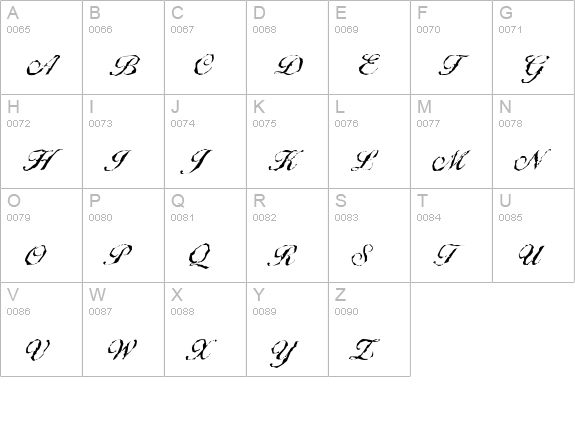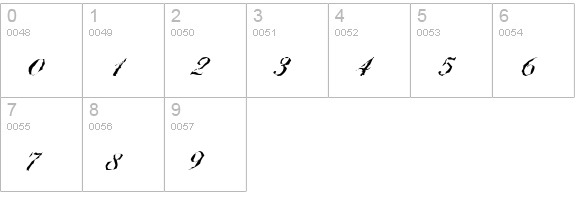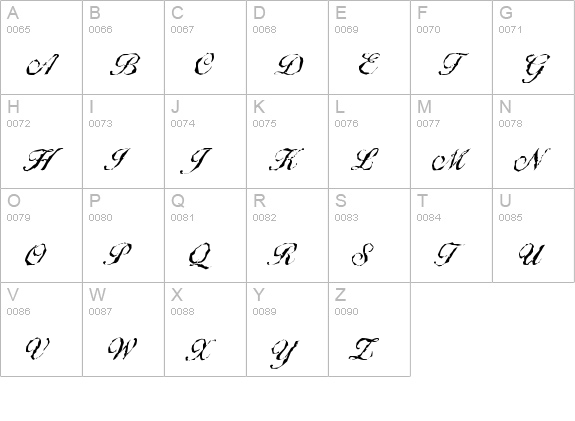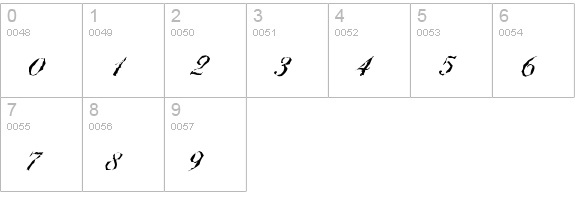
BallantinesRandom-Regular is the standard, neutral variant in the BallantinesRandom typeface family \xE2\x80\x94 well suited to general body text, paragraphs, and standard typographic work.
BallantinesRandom-Regular font is a unique and stylish typeface that exudes creativity and character. With its irregular and playful design, this font is perfect for adding a touch of whimsy to your projects. The uneven letterforms and quirky details make BallantinesRandom-Regular stand out from the crowd, giving your text a distinctive and eye-catching appearance. What's more, BallantinesRandom-Regular font is free to download at FontsMarket.com, making it easily accessible to anyone looking to add a creative twist to their designs. Whether you're working on a poster, logo, or website, this fun and lively font is sure to make a statement and leave a lasting impression. Don't miss out on the opportunity to enhance your projects with the charming and free BallantinesRandom-Regular font!